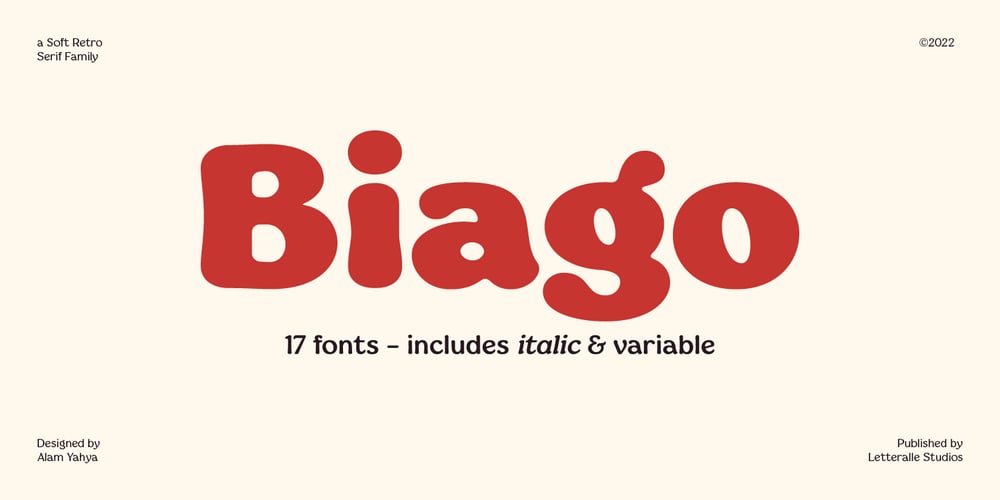
Biago Font Family was designed by Annas Alam Yahya and published by Letteralle. Biago contains 15 styles and family package options. Typeface in 70s and 80s became the inspiration for Biago. soft and bold are the characteristics of Biago. The large and rounded legs make Biago unique and different from other serif fonts.Biago brings a warm, friendly, unique, and simple impression. Biago is intended for display purposes, such as large headlines, titles, logos, or anything that requires special characteristics and attention.Biago’s five width, will give you the flexibility to express your interface and design. Italic and alternate versions are also included.